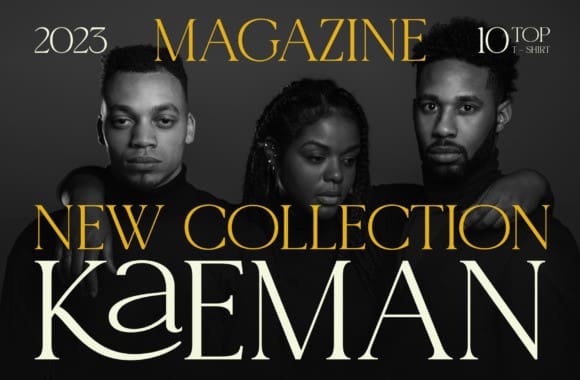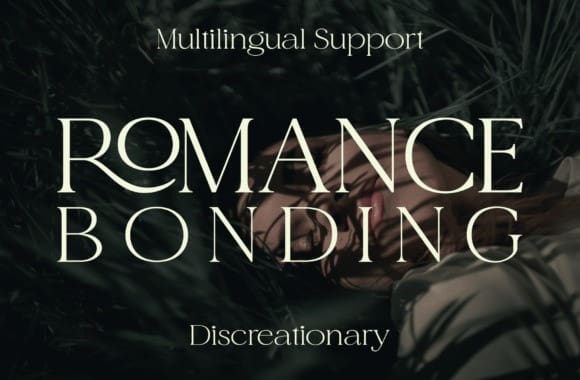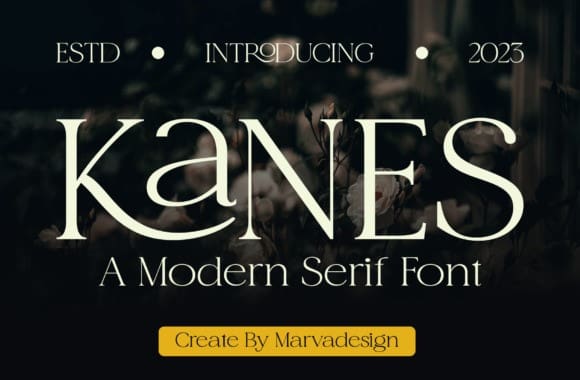
Kanes Font
Kanes Font is a refined serif font radiating elegance and sophistication. With its sleek lines and balanced proportions, Kanes exudes a timeless appeal suitable for various design applications. Whether used for editorial design, branding, or elegant invitations, this font adds a touch of class and refinement to any project.